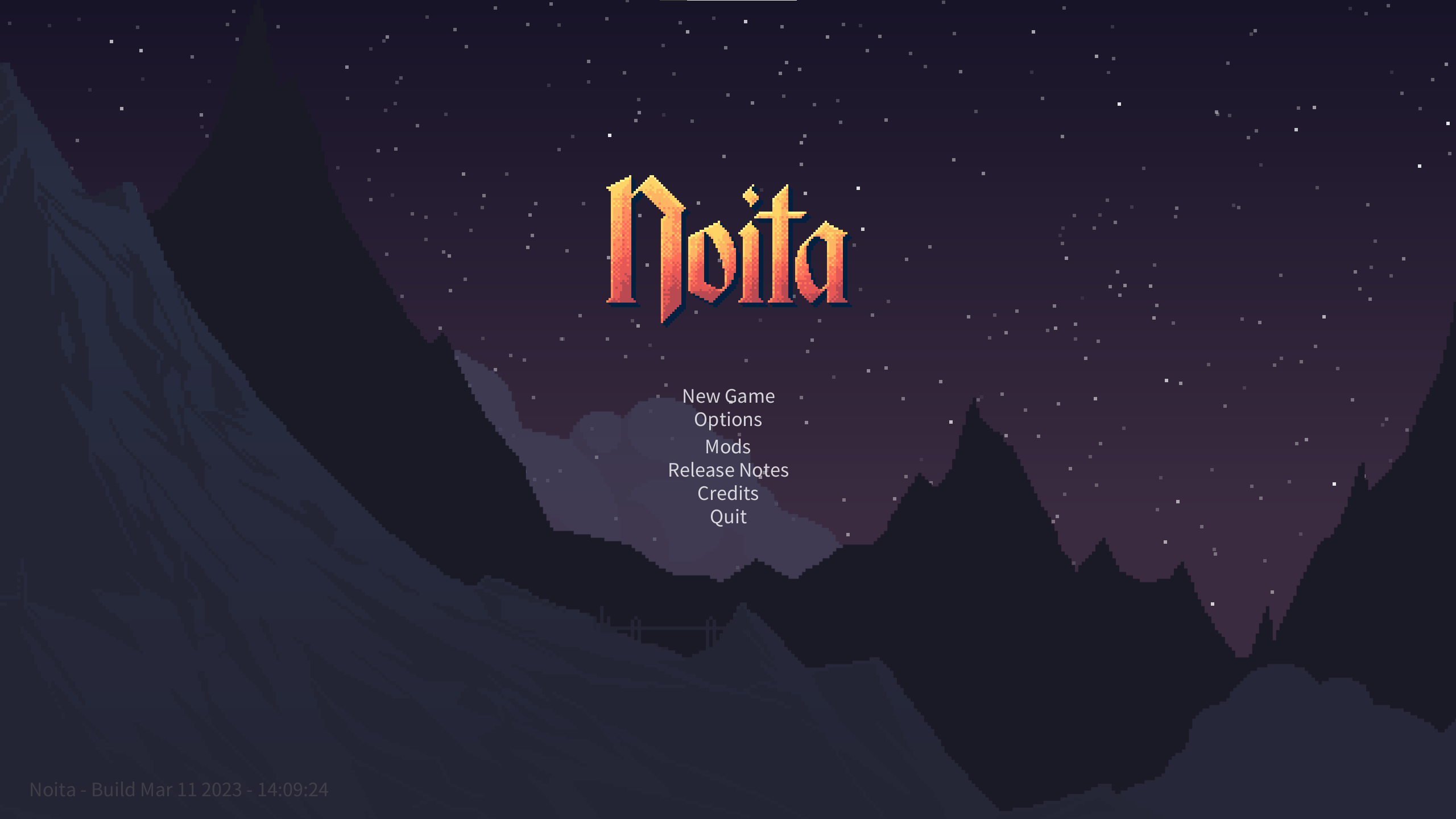
Noita: Enhancing Readability with Accessible Fonts
A Clearer Vision for Your Noita Adventures
The world of Noita is rich with lore, challenging gameplay, and intricate details. However, for some players, the default in-game font can present a barrier to fully immersing themselves in the experience. The “No Ableist Fonts” mod addresses this directly, aiming to improve the visual clarity and overall aesthetic of the game’s text for a more comfortable and enjoyable playthrough.
What the Mod Offers
This modification introduces an “Accessible English” font option, replacing the default typeface with one designed for enhanced readability. The goal is to provide a cleaner, more visually pleasing alternative that can make a significant difference for players who find the original font difficult to read or simply prefer a different style. The developers have focused on creating a font that is both functional and aesthetically pleasing, ensuring it complements the unique visual style of Noita.
Key Features:
- Replaces the default Noita font with an accessible alternative.
- Improves text readability for a smoother gameplay experience.
- Offers a cleaner and more visually appealing typographic style.
- Currently supports English language text within the game.
Community-Driven Improvements
The “No Ableist Fonts” mod is designed with community feedback in mind. While English is the current focus, the developer is open to adding support for other languages based on player requests. This collaborative approach ensures that the mod can evolve to meet the needs of a wider range of Noita players, making the game more accessible to everyone. If you’ve ever wished for a slightly different look for Noita’s text, this mod offers a welcome solution.